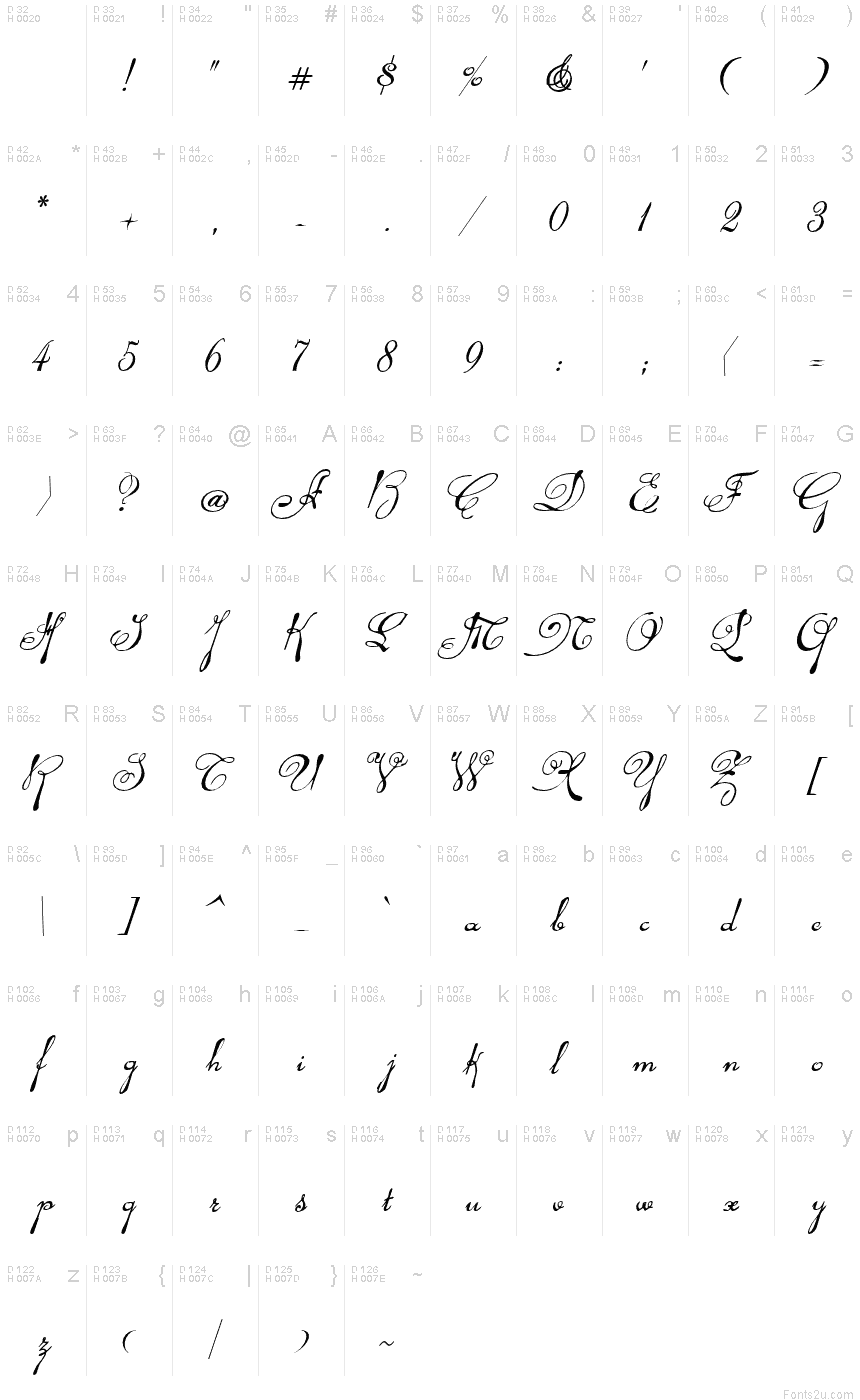
Rhalina Italic by Daniel Zadorozny of Iconian Fonts is a free calligraphic script with large sweeping loops, sharply tapered strokes, and dramatic repeated changes in width. The oversized capitals are especially theatrical and ornate.
Designers shaping romantic or theatrical identities can use it for wedding invitations, beauty packaging, and luxury fashion branding. Its long flourishes let lettering become part of the decoration, rather than serving as a quiet label. Music posters and period romance covers also suit its elaborate penmanship, sweeping silhouette, and the spectacle of ornate formal lettering.
Rhalina Italic